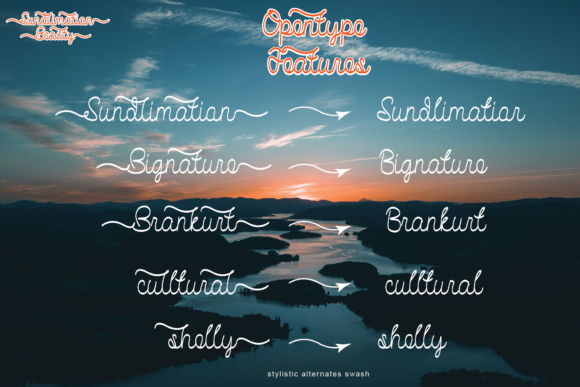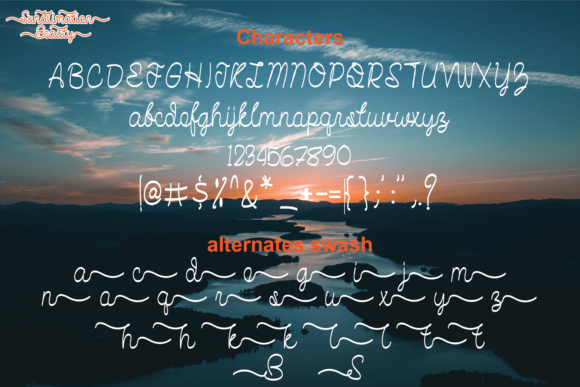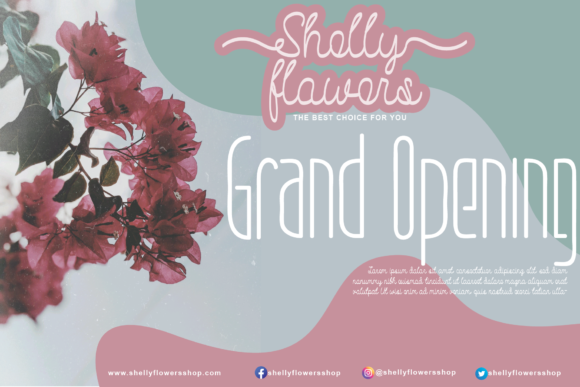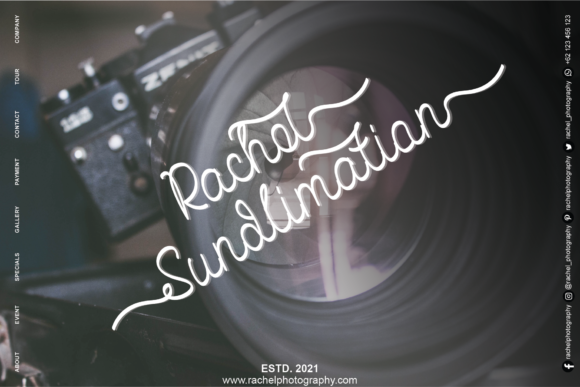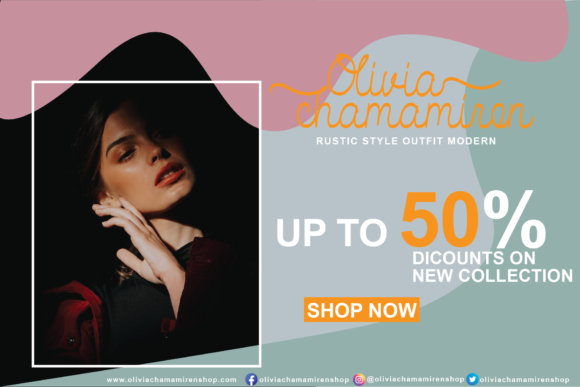
About Sundlimation Beauty Font
Sundlimation Beauty is a well balanced, refined script font that emanates sophistication and elegance. Its stylish alternates and ligatures make this font the perfect match for any project.